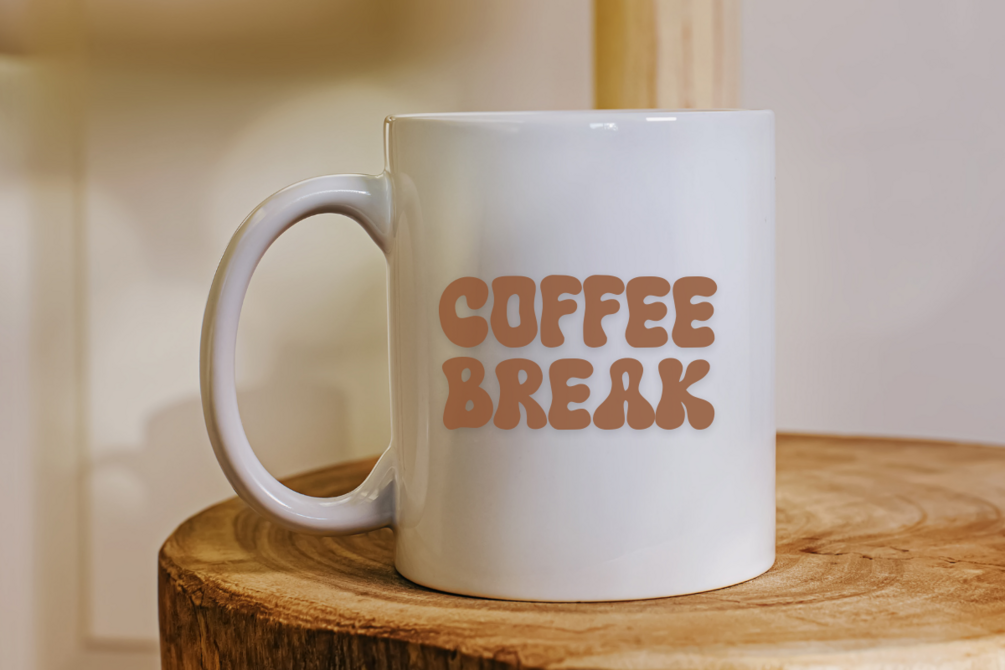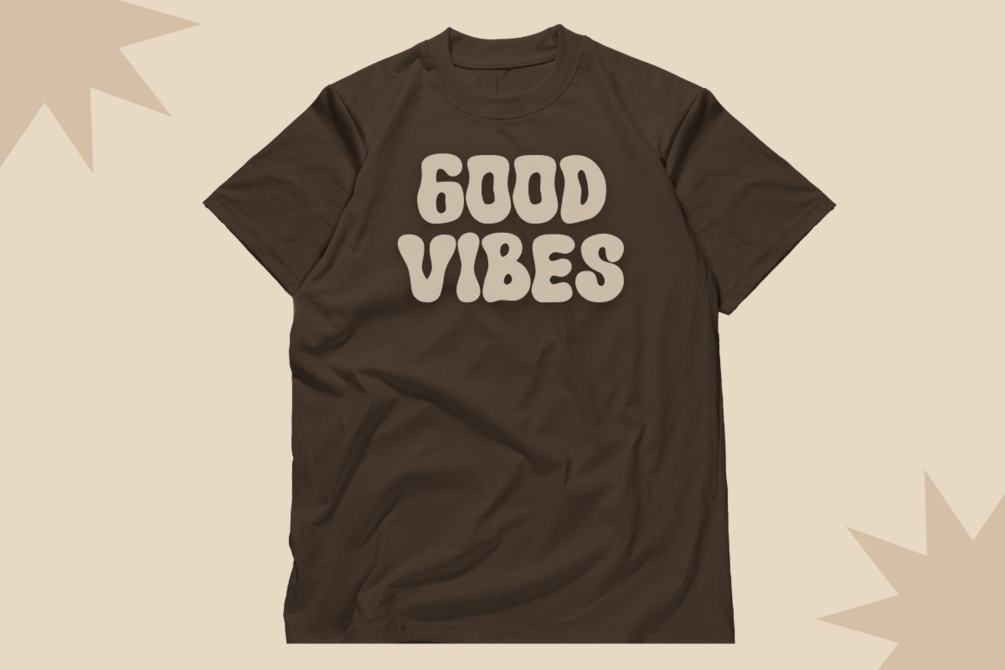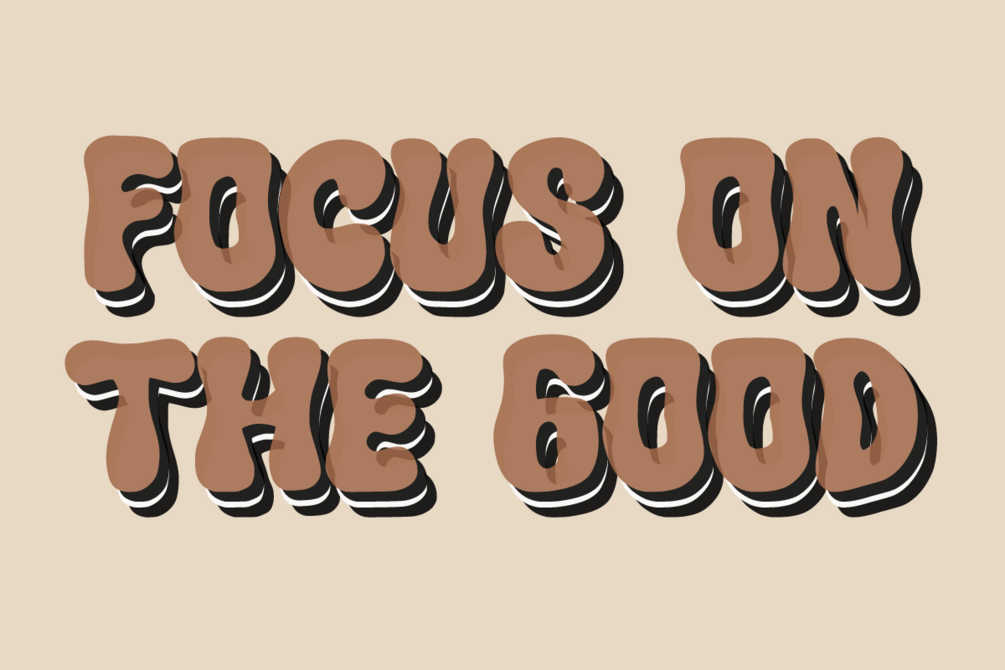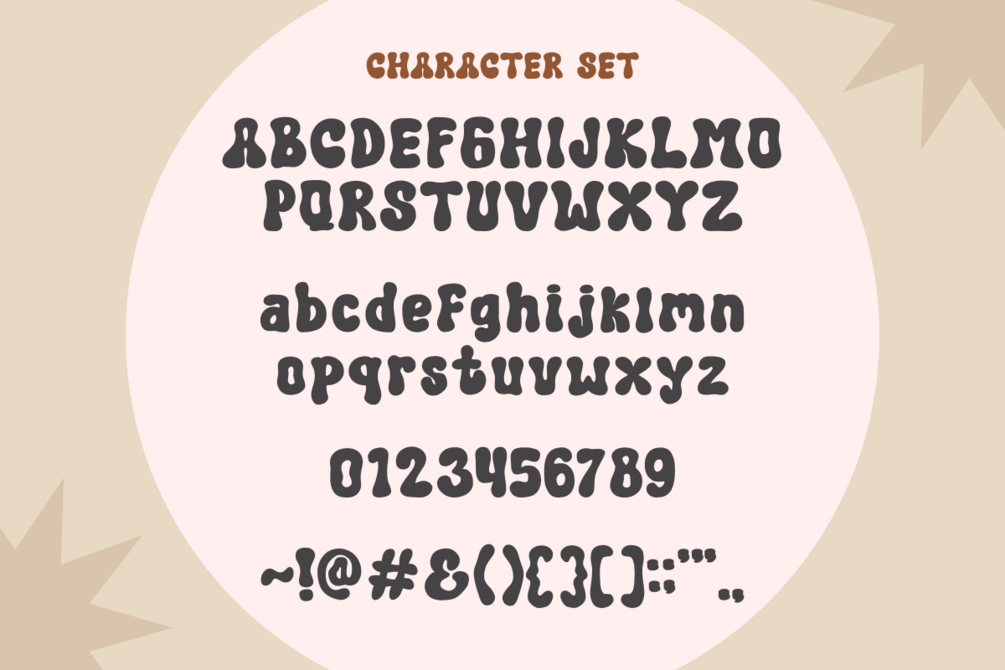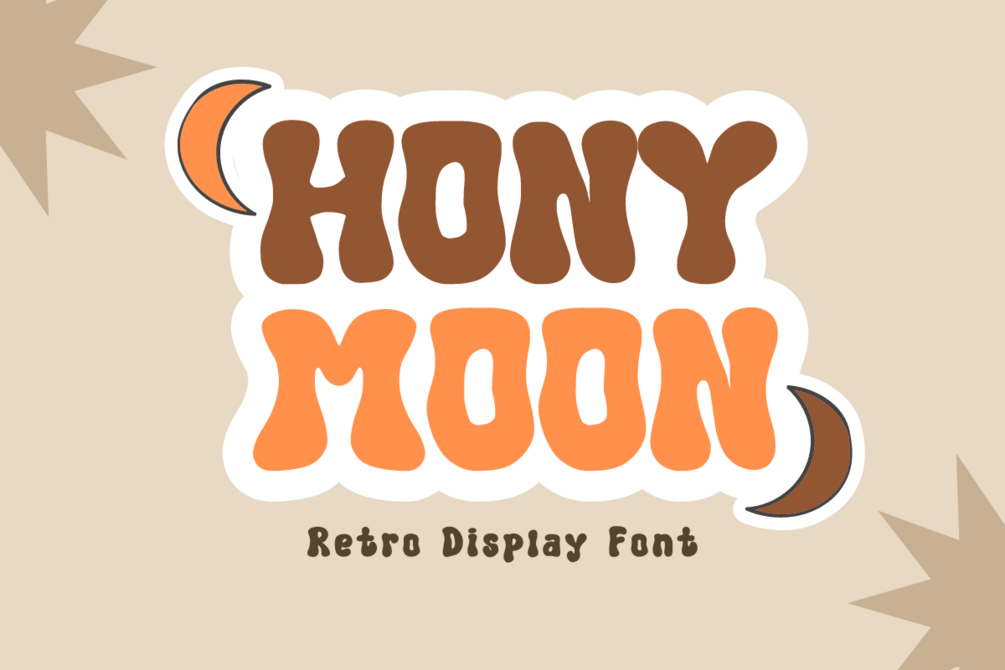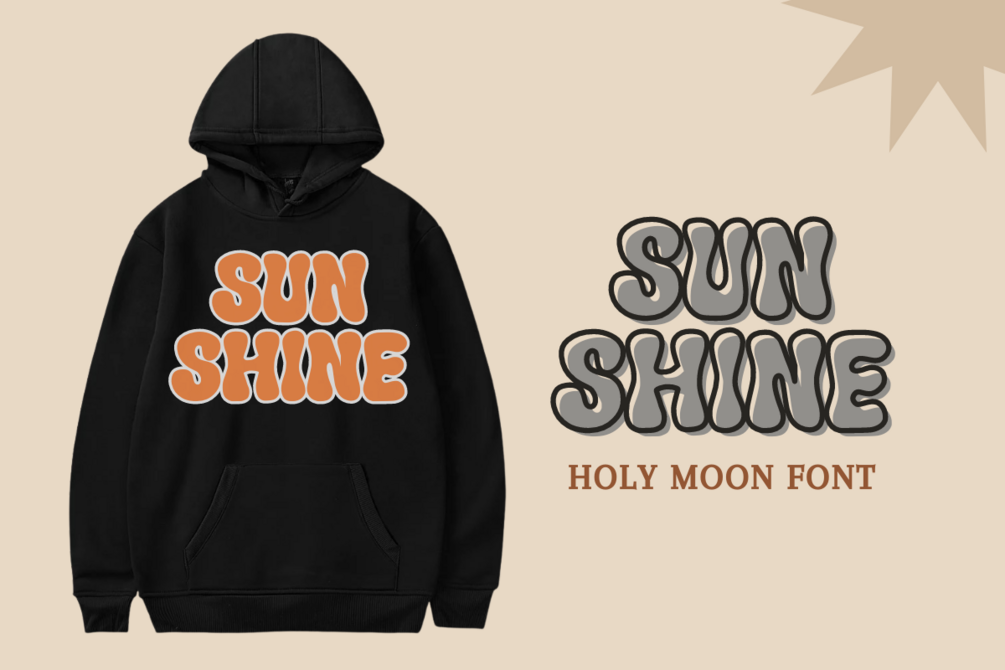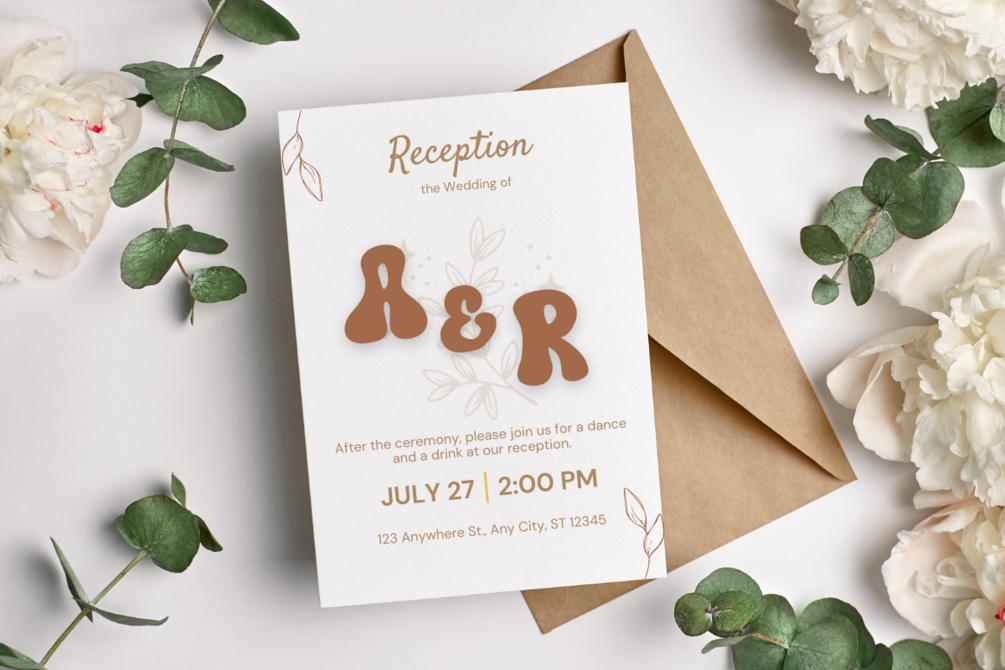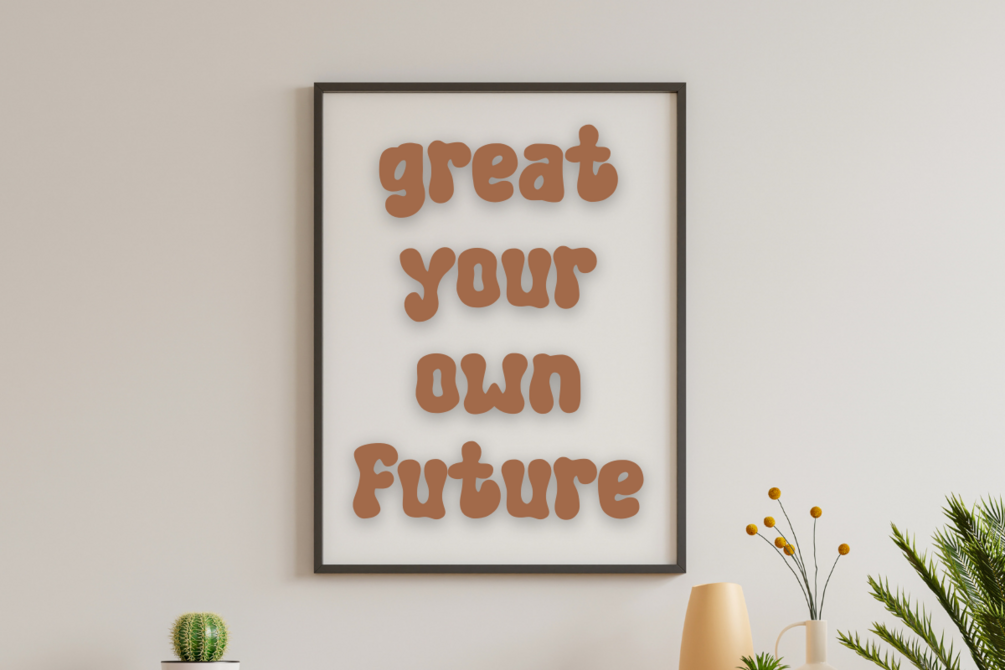
Hony Moon - Retro Display Font
Hony Moon is a retro, bubble display font. It is the perfect font for any craft project, such as posters, t-shirt quotes, sweaters, tote bags, stickers, sublimation, displays, and more. Expertly designed to become a true favorite, this font has the potential to take your every creative idea to the highest level!